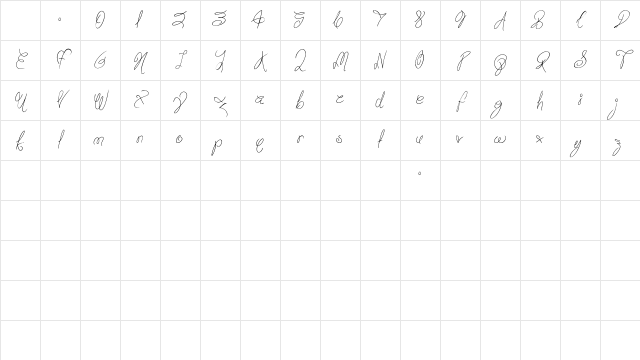
Truly Yours Regular
Foundry: Jonathan S. Harris
Designer: Jonathan S. Harris
Design Context for Truly Yours
Truly Yours is a composed and adaptable typeface that performs quietly and consistently across a wide range of design contexts.